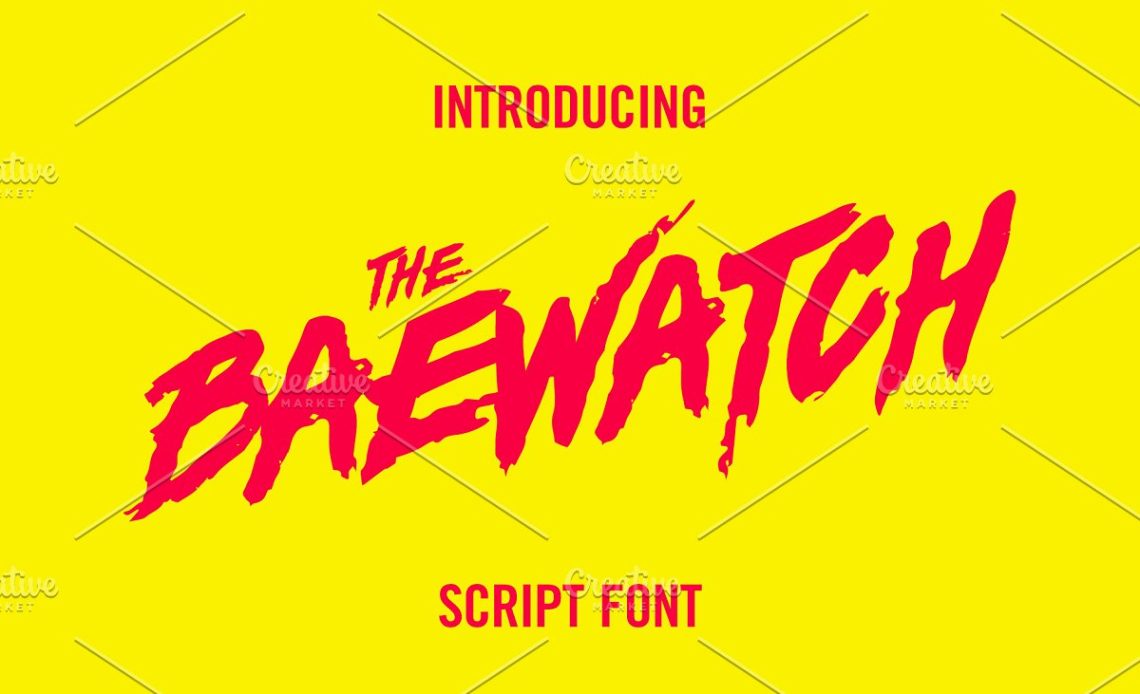
Introducing Baewatch Script Font, a captivating and trendy addition to your font collection. Designed by the talented Scott Wilson, this font is inspired by the iconic 90's TV series Baywatch, bringing a nostalgic touch to your designs.
Baewatch Script Font belongs to the script font family, offering a unique and eye-catching style that is perfect for various design projects. Whether you're working on packaging, posters, logos, or headlines, this font will elevate your creations to new heights.
With its basic letterforms and a selection of alternates, Baewatch Script Font allows you to customize your designs and create a truly personalized look. Let your creativity flow as you experiment with different letter combinations and variations, ensuring that your projects stand out from the crowd.
But Baewatch Script Font is not just about aesthetics; it also offers functionality. The inclusion of numbers in the recent update on 01/31/21 makes it even more versatile for a wide range of design purposes. From adding dates to your event posters to creating numerical elements in your packaging, Baewatch Script Font has got you covered.
Embrace the emotional journey that Baewatch Script Font takes you on. Its captivating strokes and nostalgic vibes will transport your audience to the sun-soaked beaches of the 90s, evoking feelings of excitement, adventure, and joy. Let your designs speak to your users on a deeper level, creating connections and leaving a lasting impression.